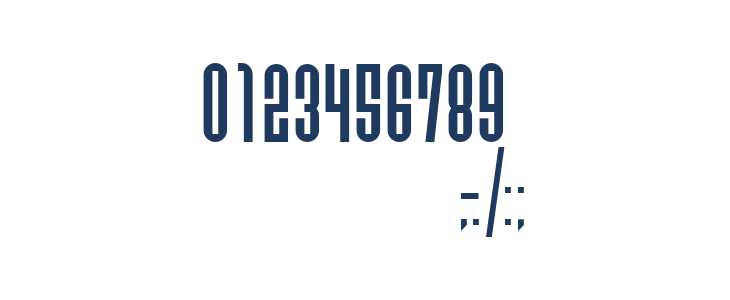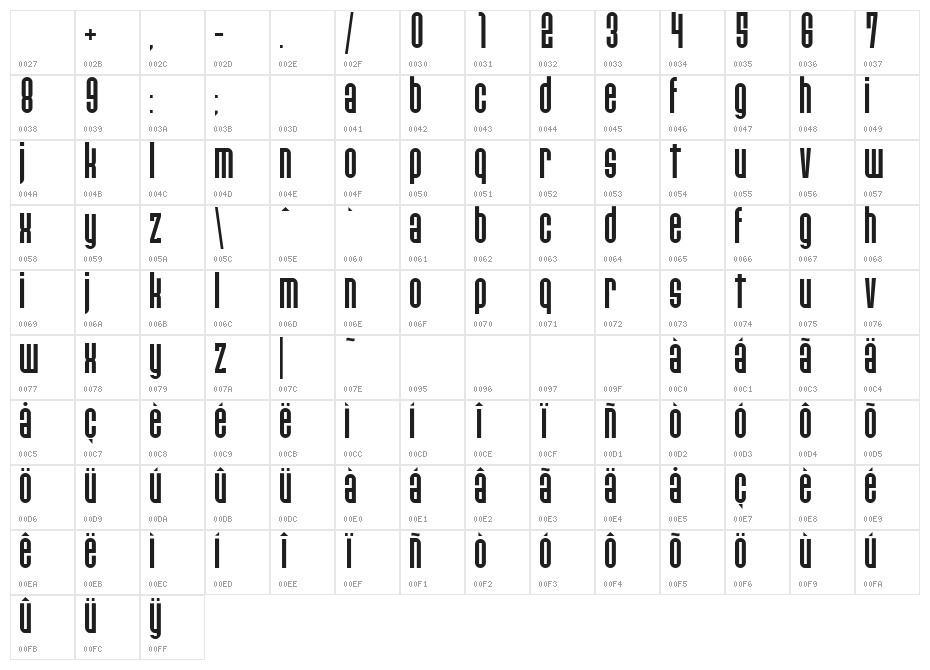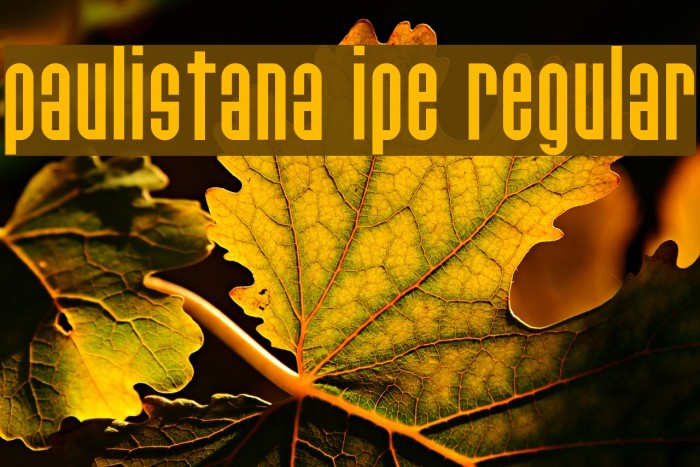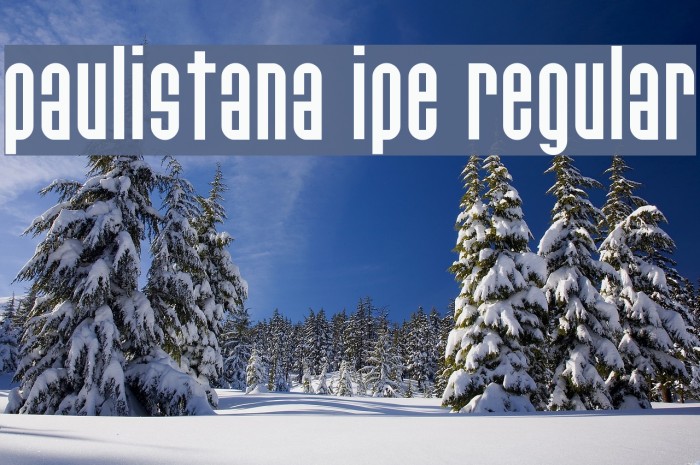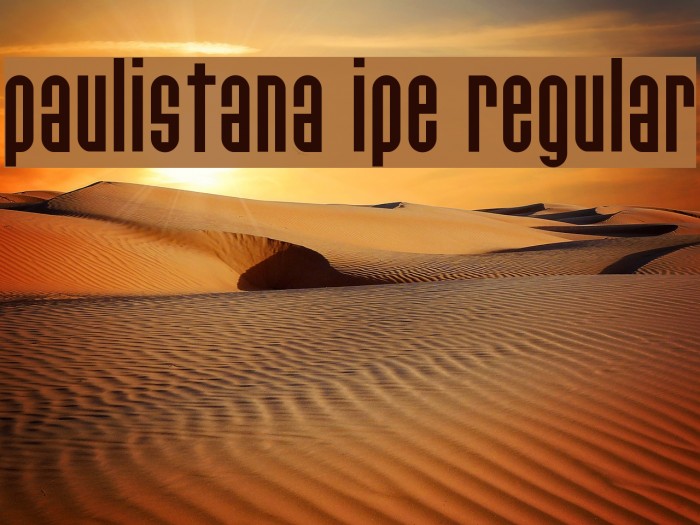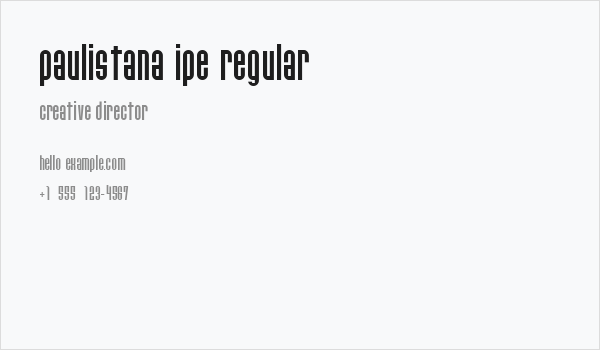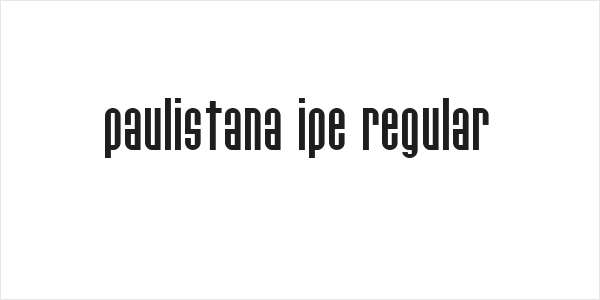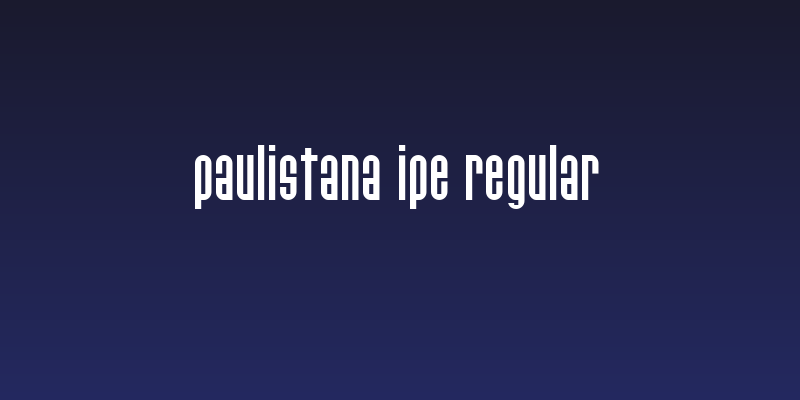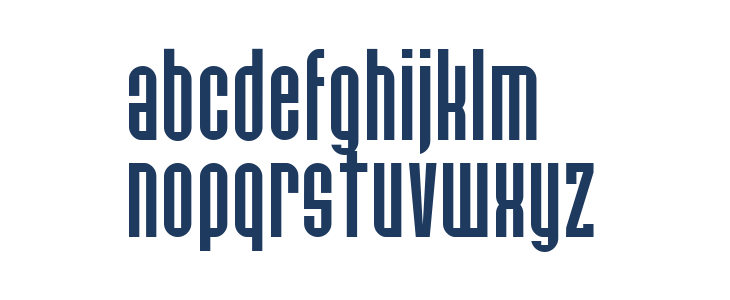
Paulistana Ipe Regular Font
Paulistana Ipe Regular Description
This font features a bold, condensed style with a modern and geometric appearance. The characters are tall and narrow, with consistent stroke widths that give it a uniform and structured look. The uppercase and lowercase letters maintain a similar height, enhancing the compactness of the design. The numerals and special characters follow the same aesthetic, ensuring cohesion across all glyphs. This font's strong vertical emphasis and minimal contrast make it highly legible and impactful, ideal for creating a striking visual presence.
| Proposed Projects | Ideal for posters, headlines, branding, and any project requiring a strong visual impact. |